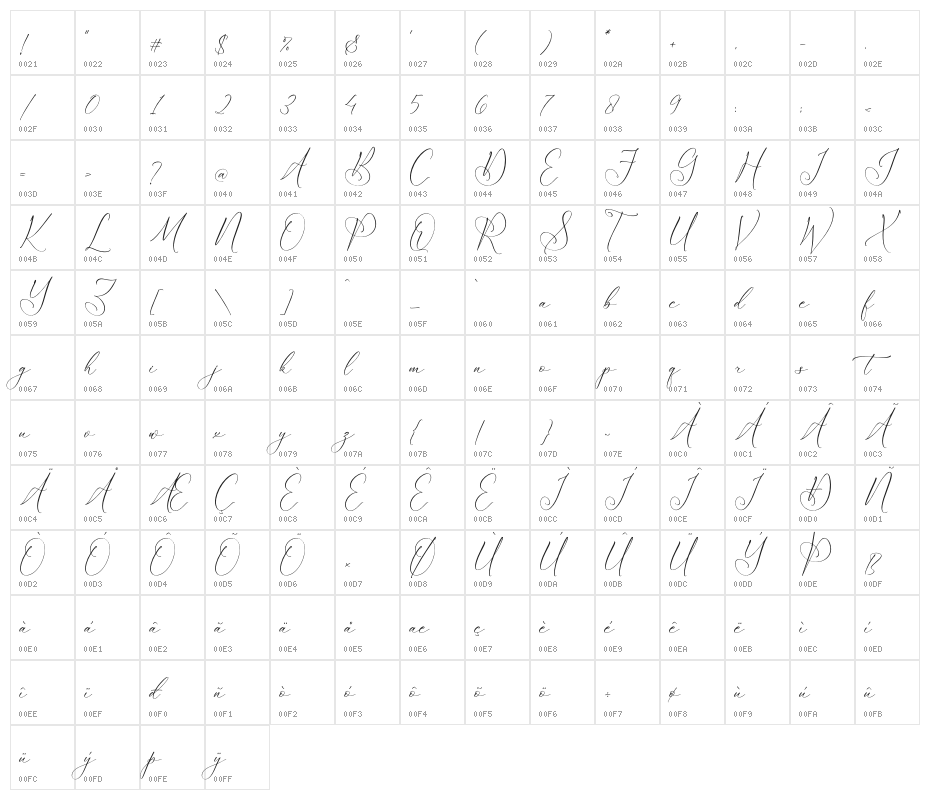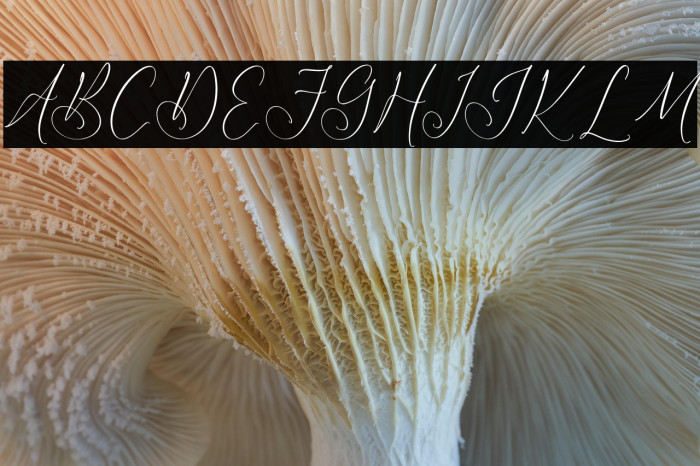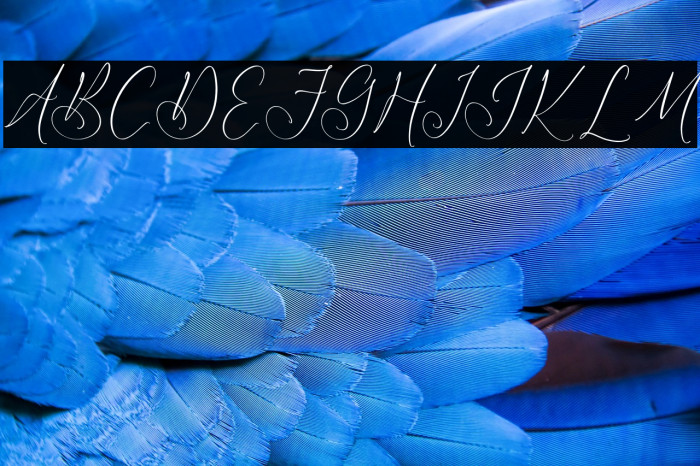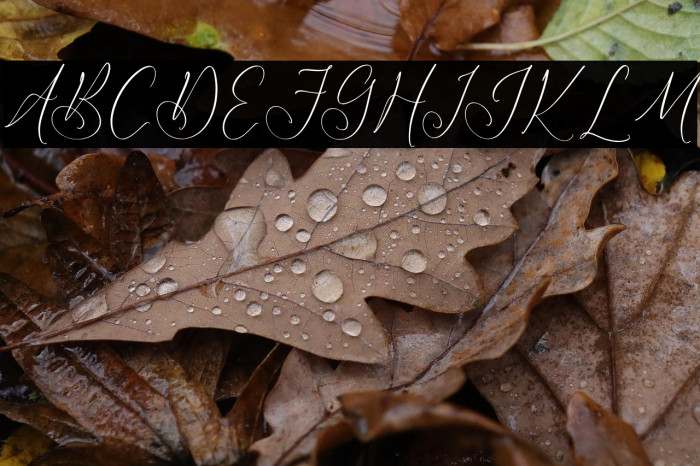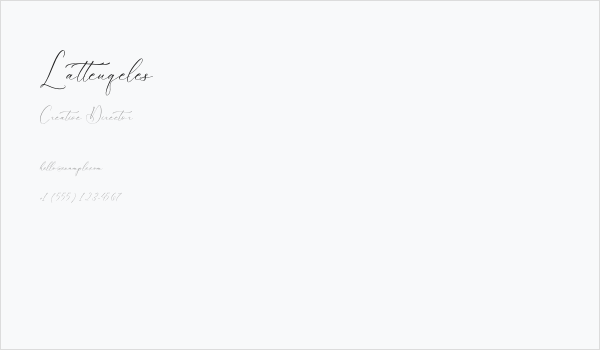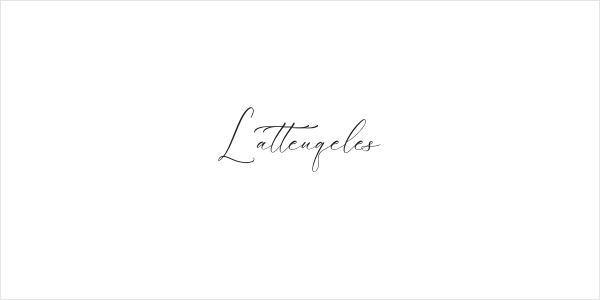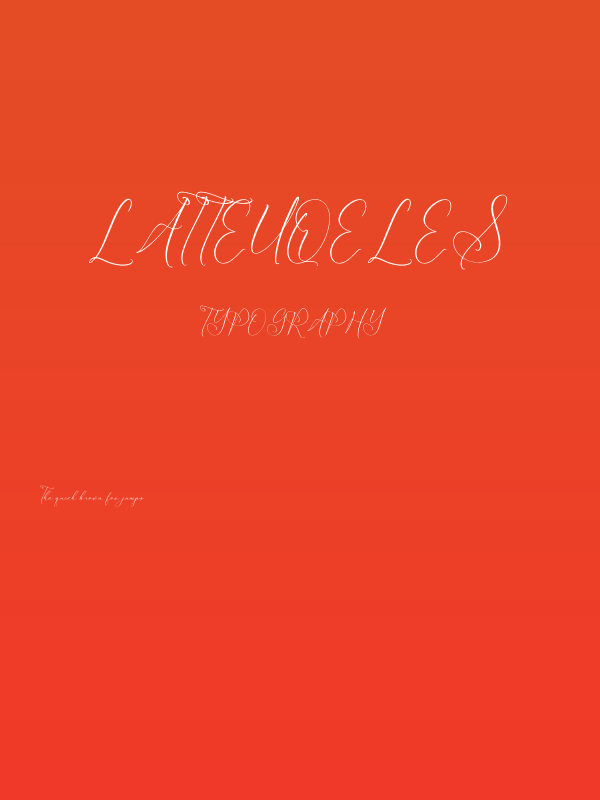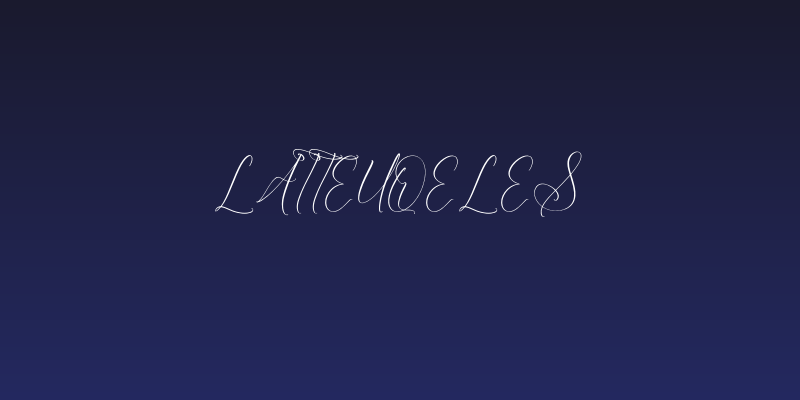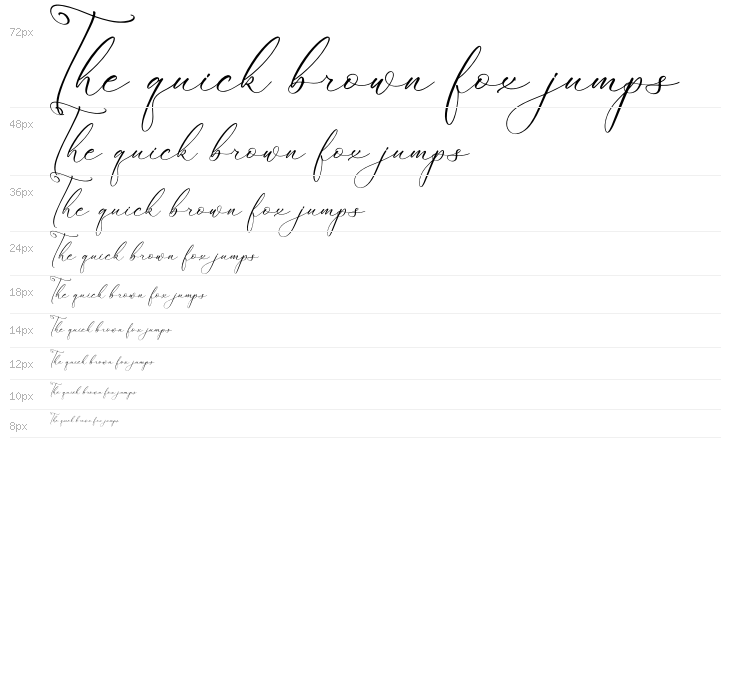
Latteuqeles Font
Latteuqeles Description
This elegant script font features flowing, interconnected letters with a refined and sophisticated appearance. The uppercase letters are adorned with delicate swirls and loops, adding a touch of grace and fluidity. The lowercase letters maintain a consistent style, with smooth curves and a natural handwritten feel. The numerals are stylishly crafted to match the overall aesthetic, while the special characters are thoughtfully integrated to complement the script's elegance. This font exudes a sense of luxury and is perfect for projects that require a personal, artistic touch.
| Overall Style | Elegant, Artistic |
| Use Case | Logos, Invitations, Personal stationery |
| Proposed Projects | Ideal for wedding invitations, elegant branding, personal stationery, and artistic projects. |